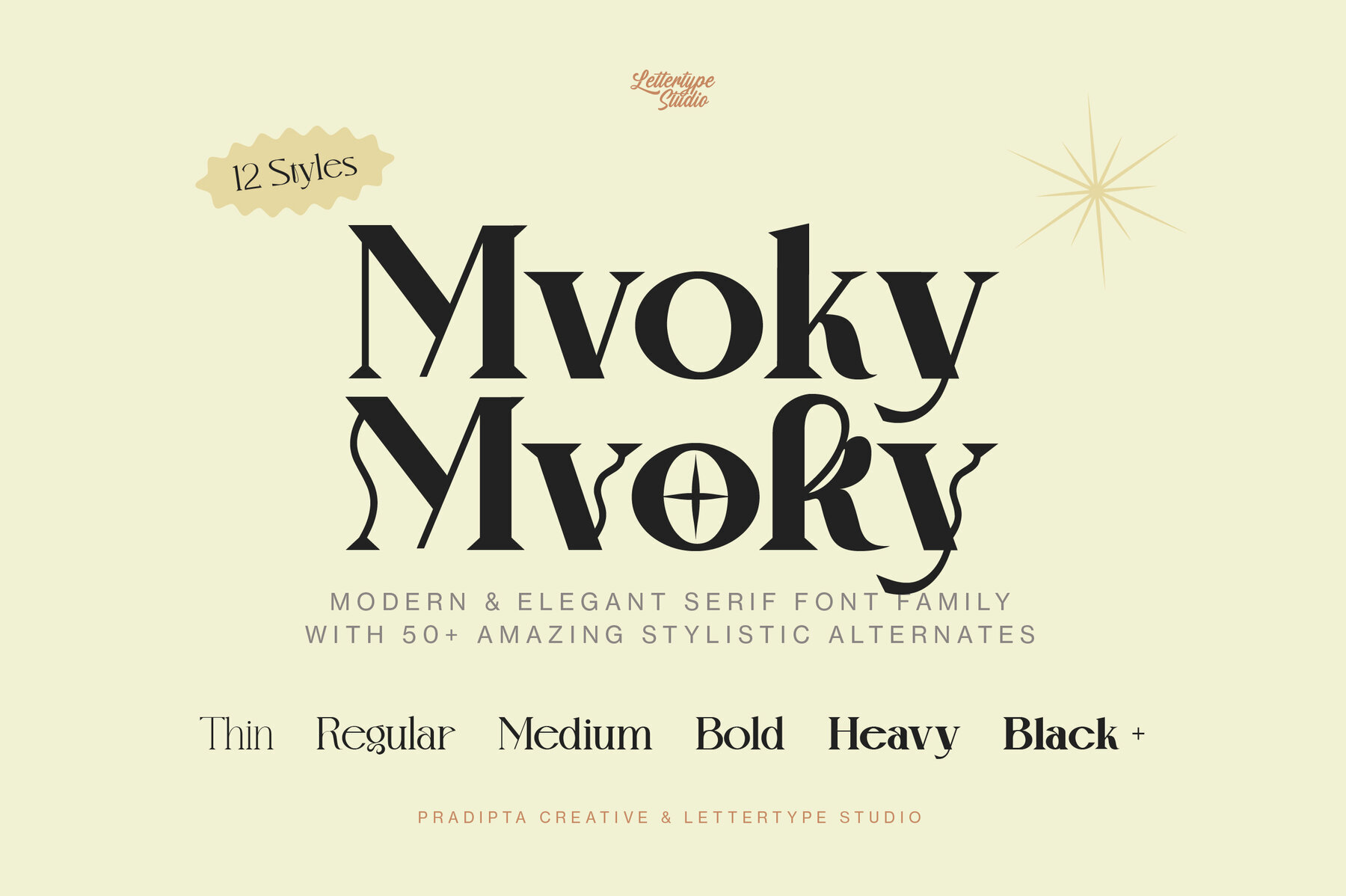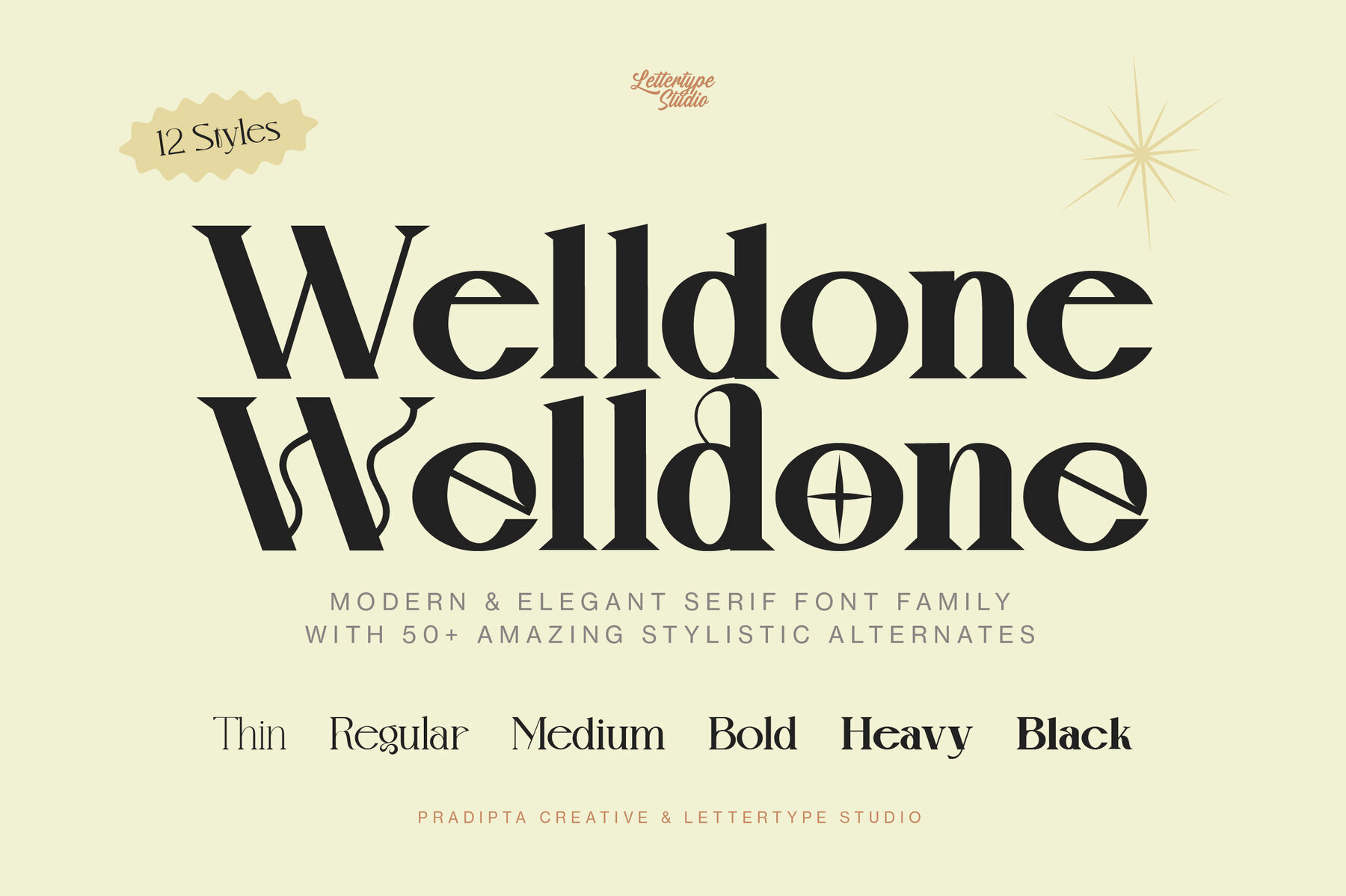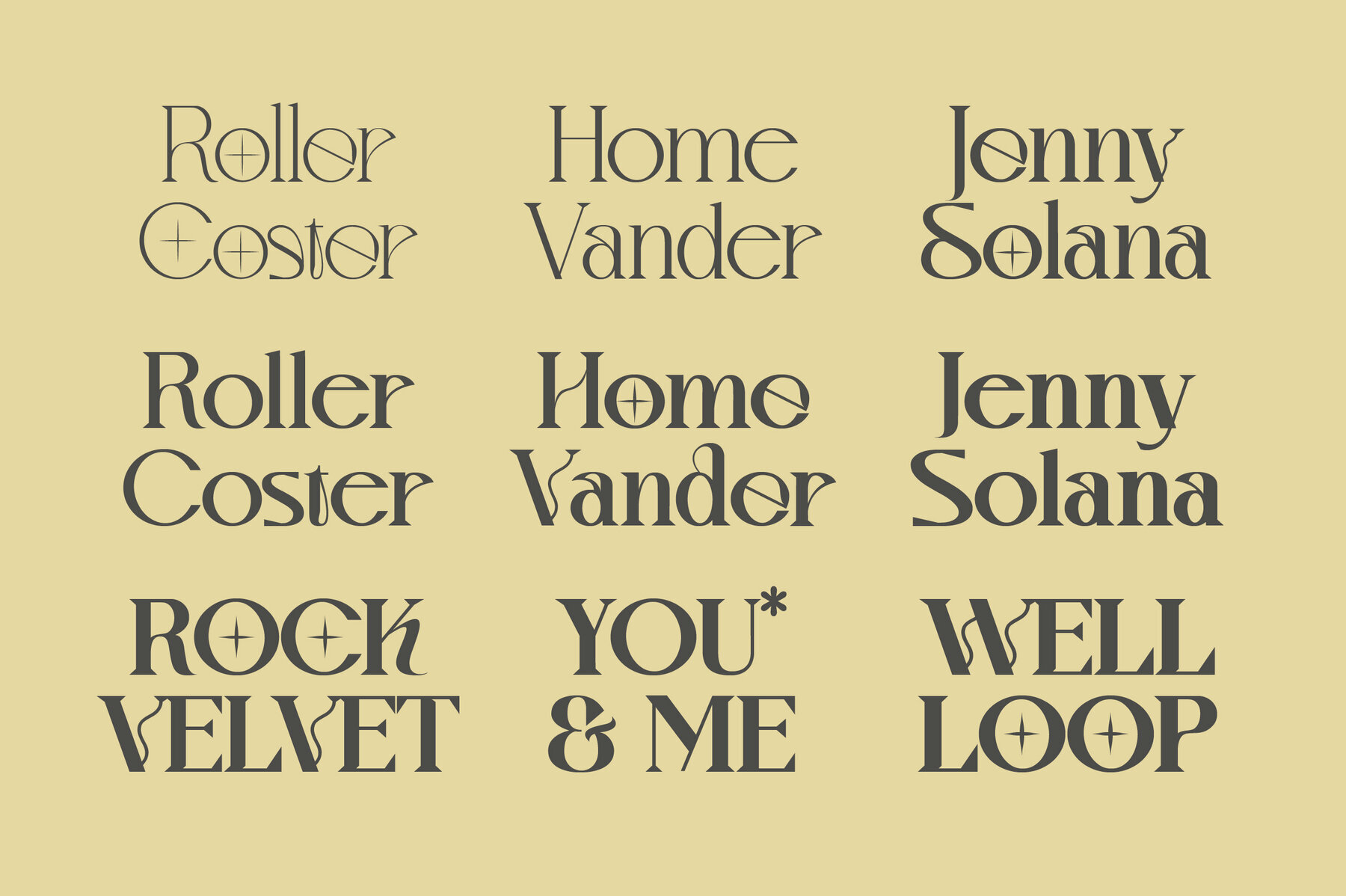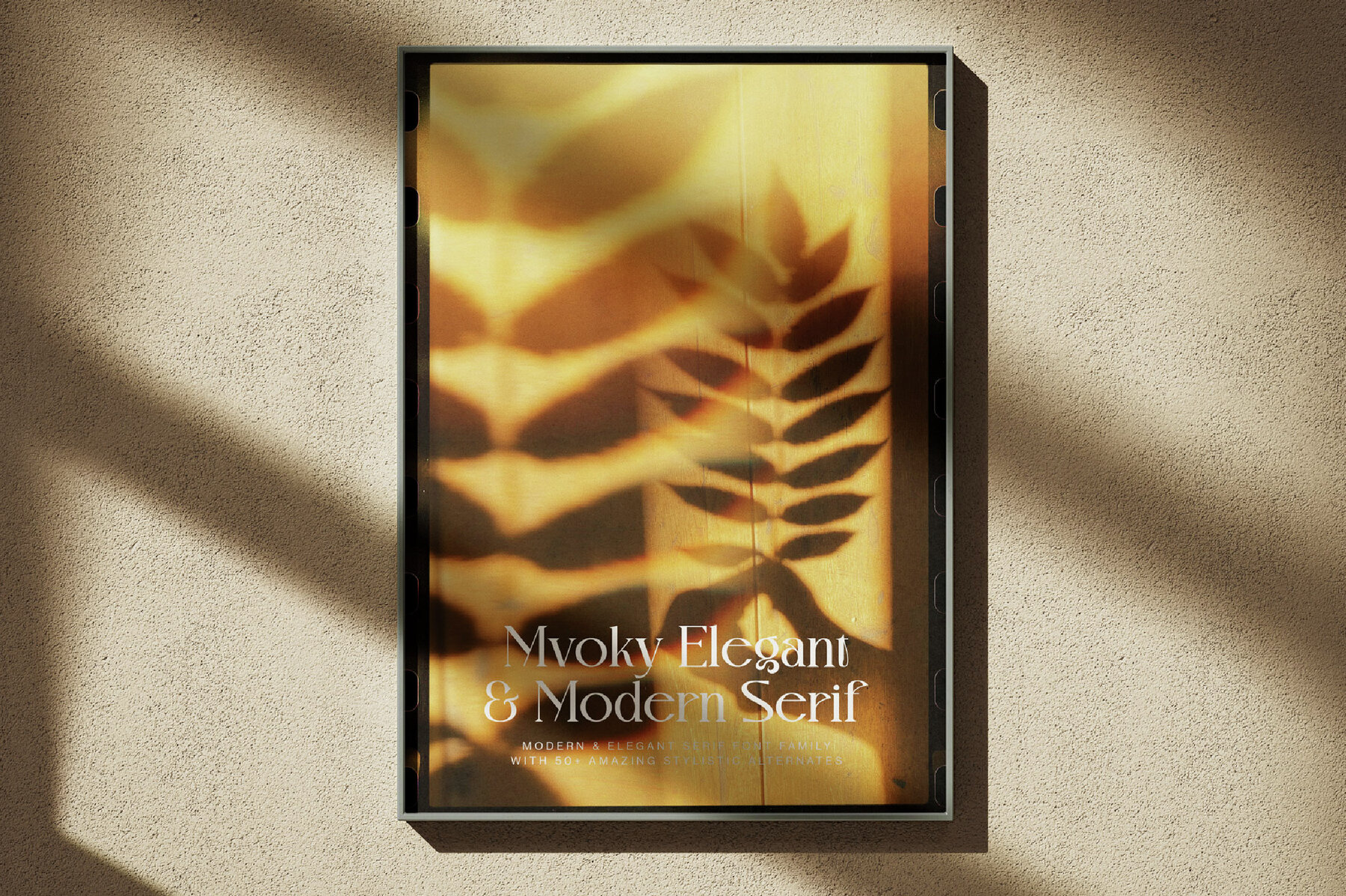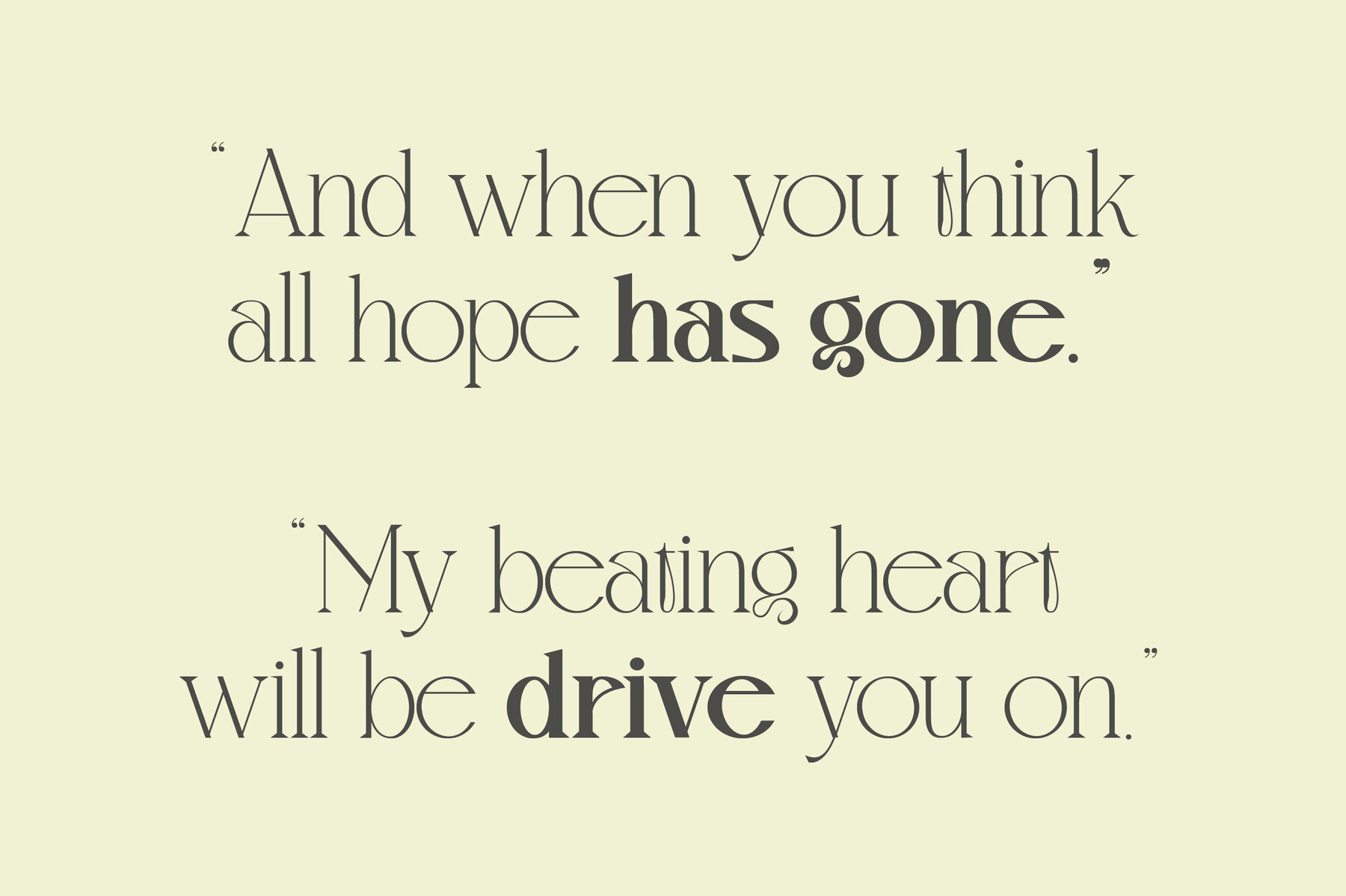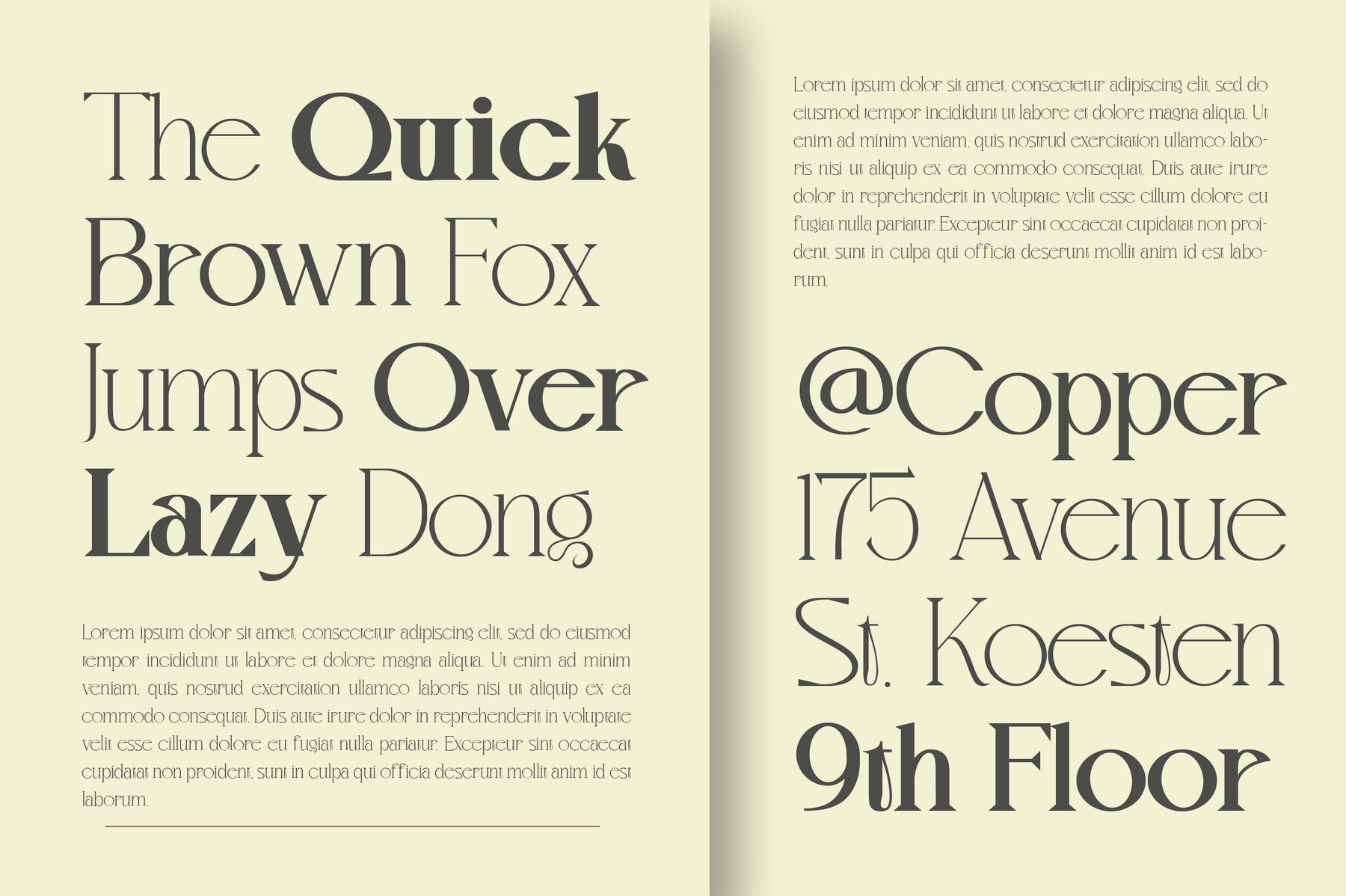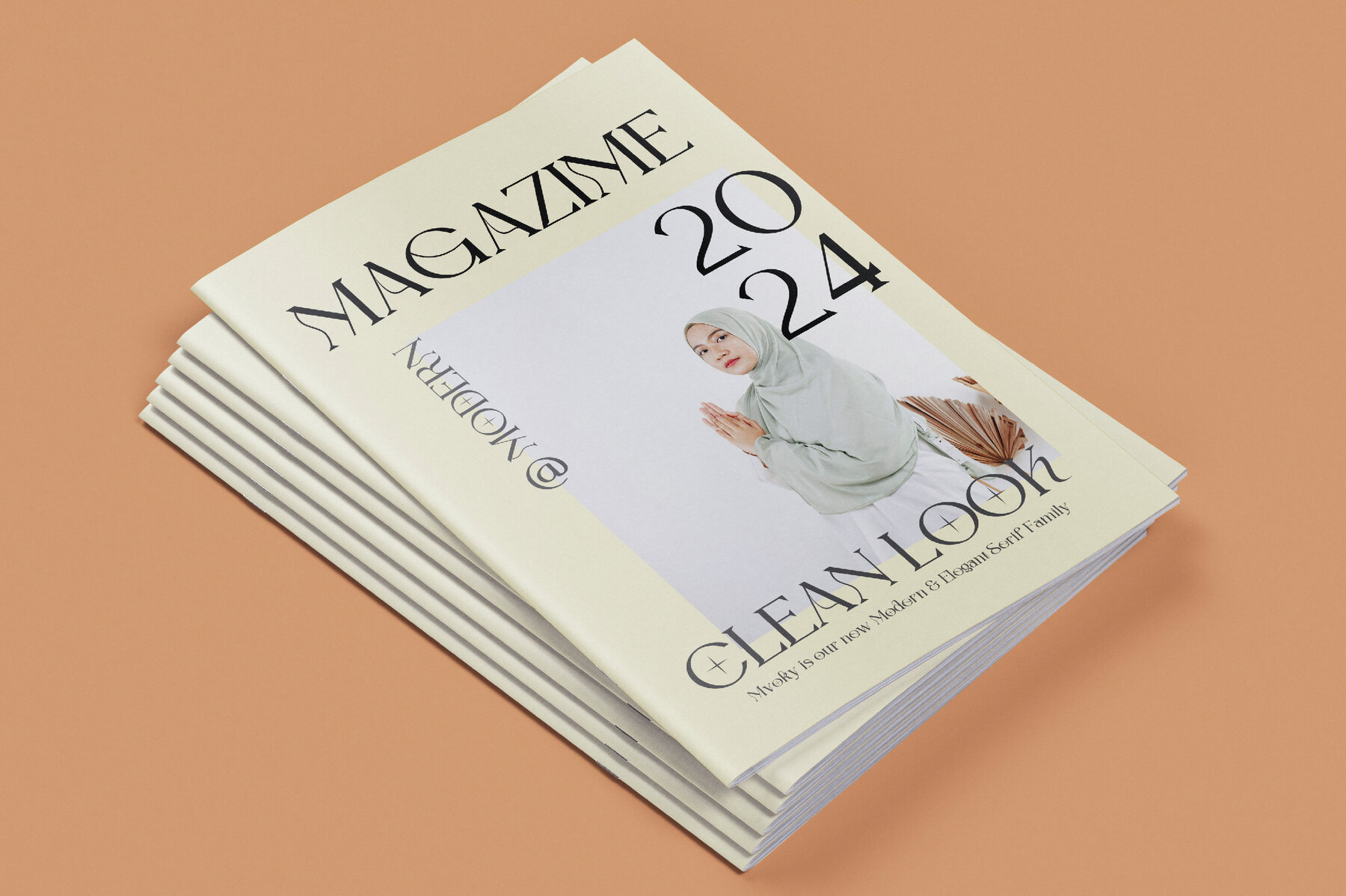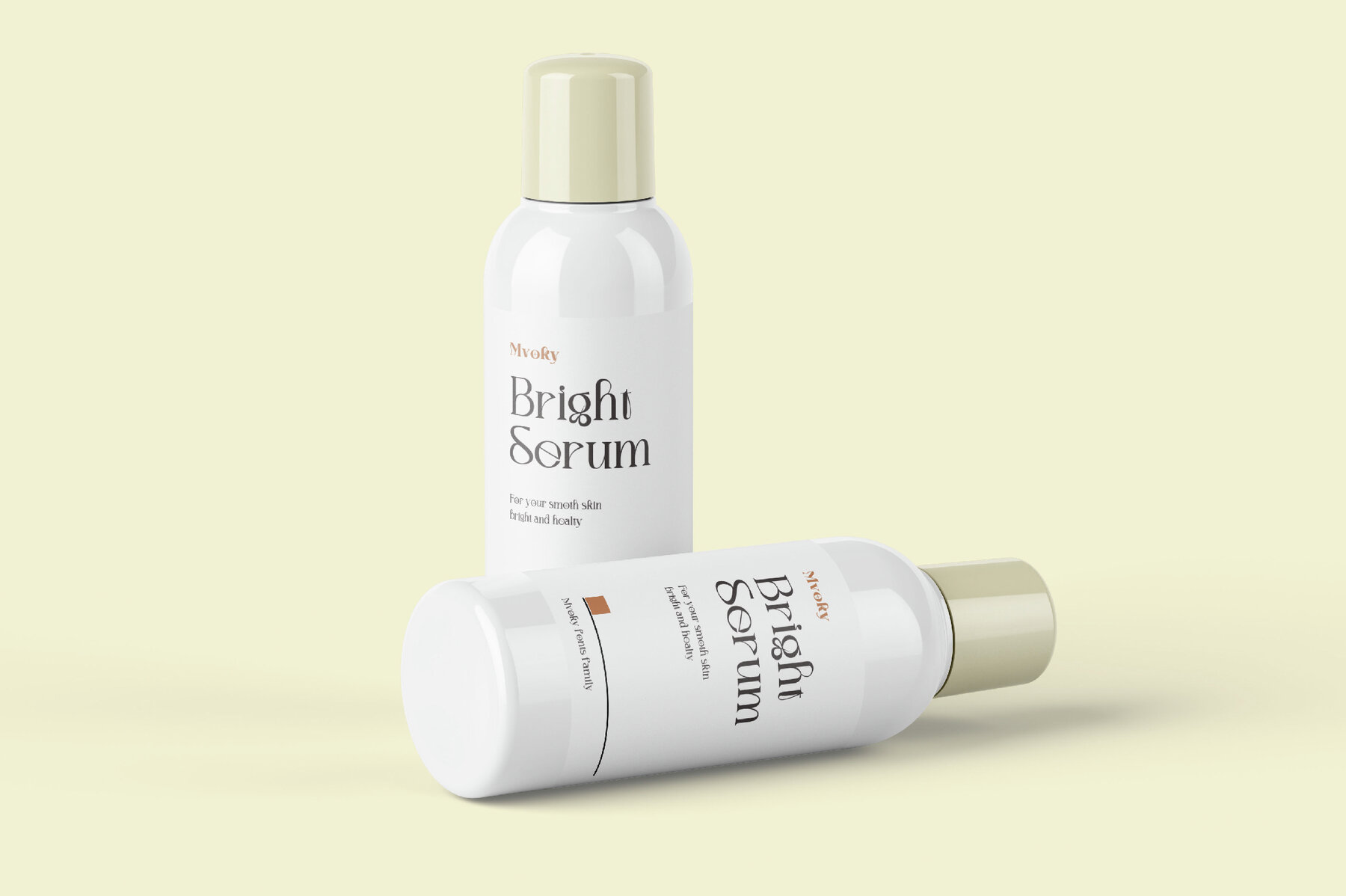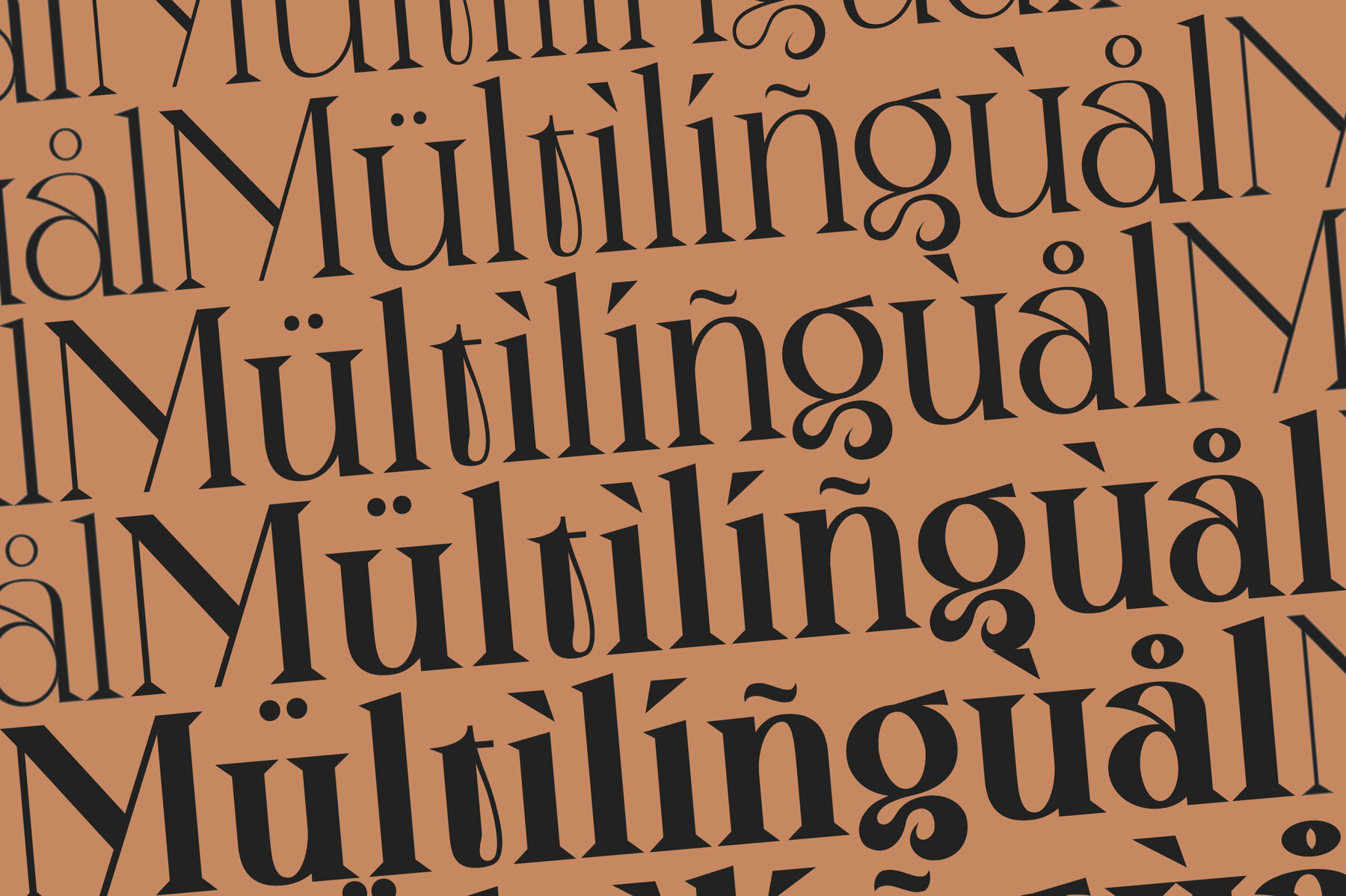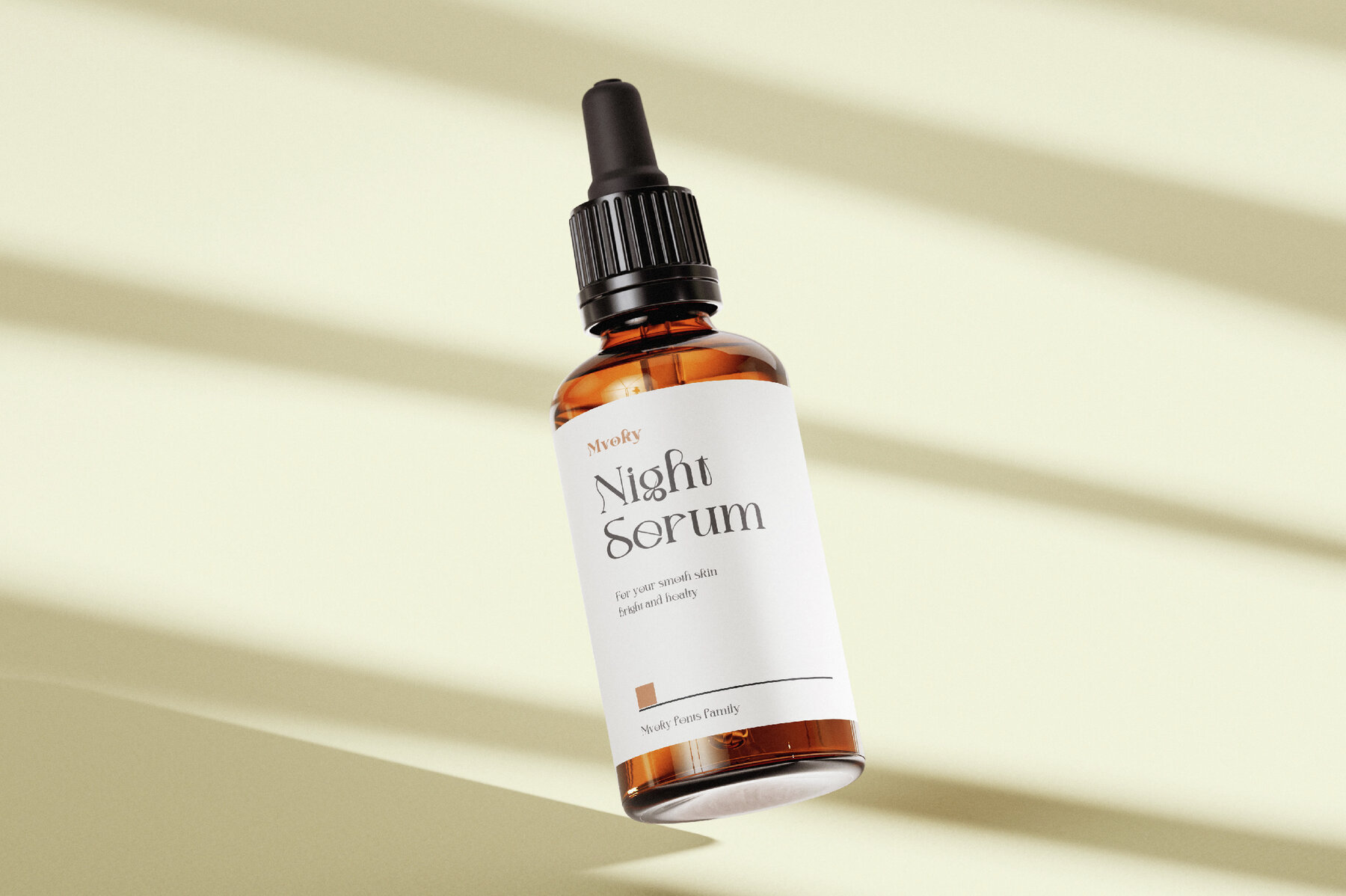
Mvoky Font
Mvoky is an elegant and bold serif typeface that combines modern chic with a timeless charm. Its distinctive character sets and clean geometric lines offer a luxurious touch, making it perfect for sophisticated branding, editorial projects, and web typography. Ideal for those who seek versatility, the Mvoky font family ensures your designs stand out. This font delivers both contemporary and vintage aesthetics, offering a wide range of styles from thin to extra black. Whether used in large or small sizes, Mvoky provides stunning results across all design mediums. Its multilingual support and various weights make it suitable for diverse projects, enhancing your digital and print creations with its unique flair.Mvoky: A Modern Elegant Serif Font
Mvoky Features